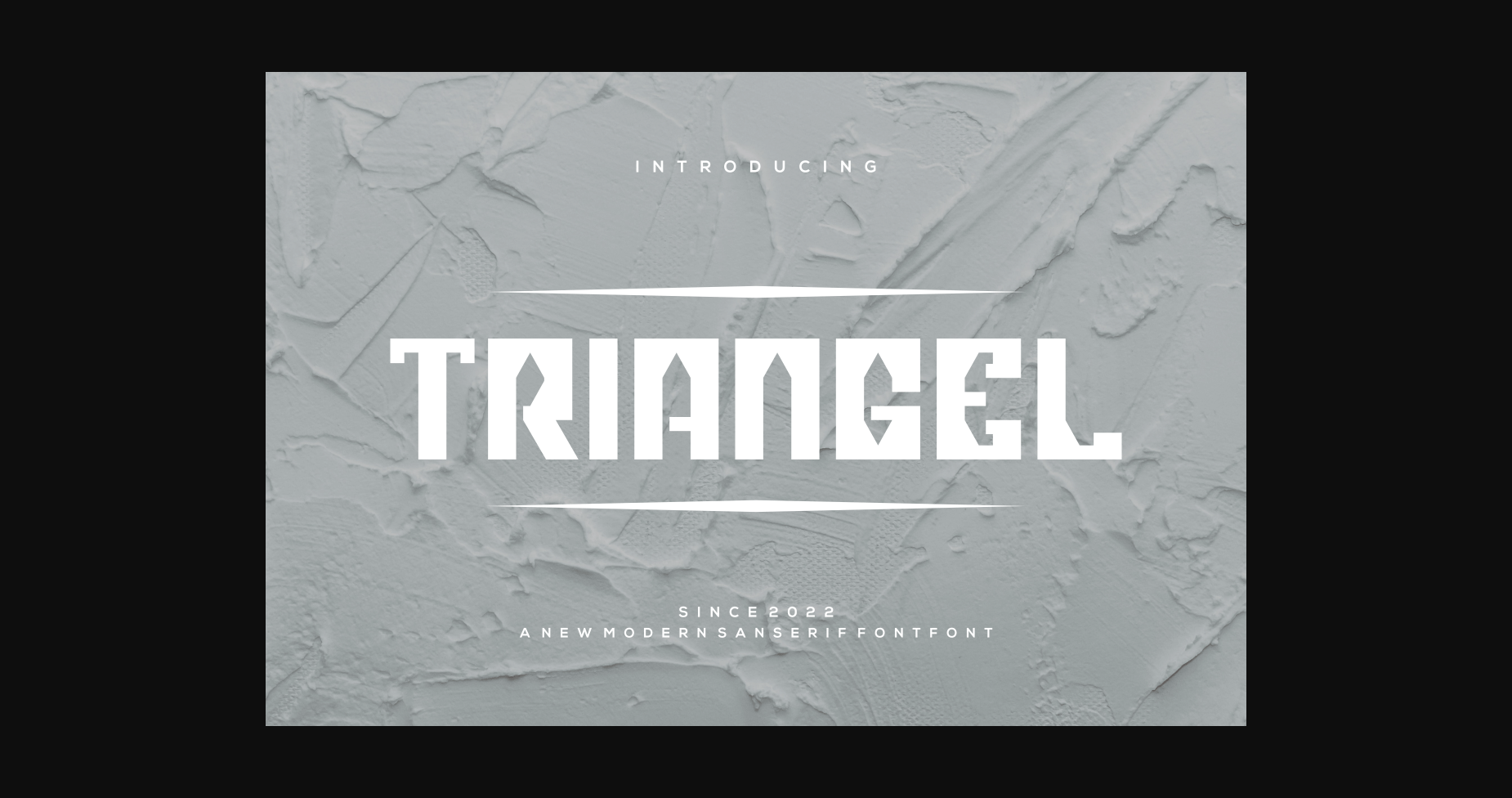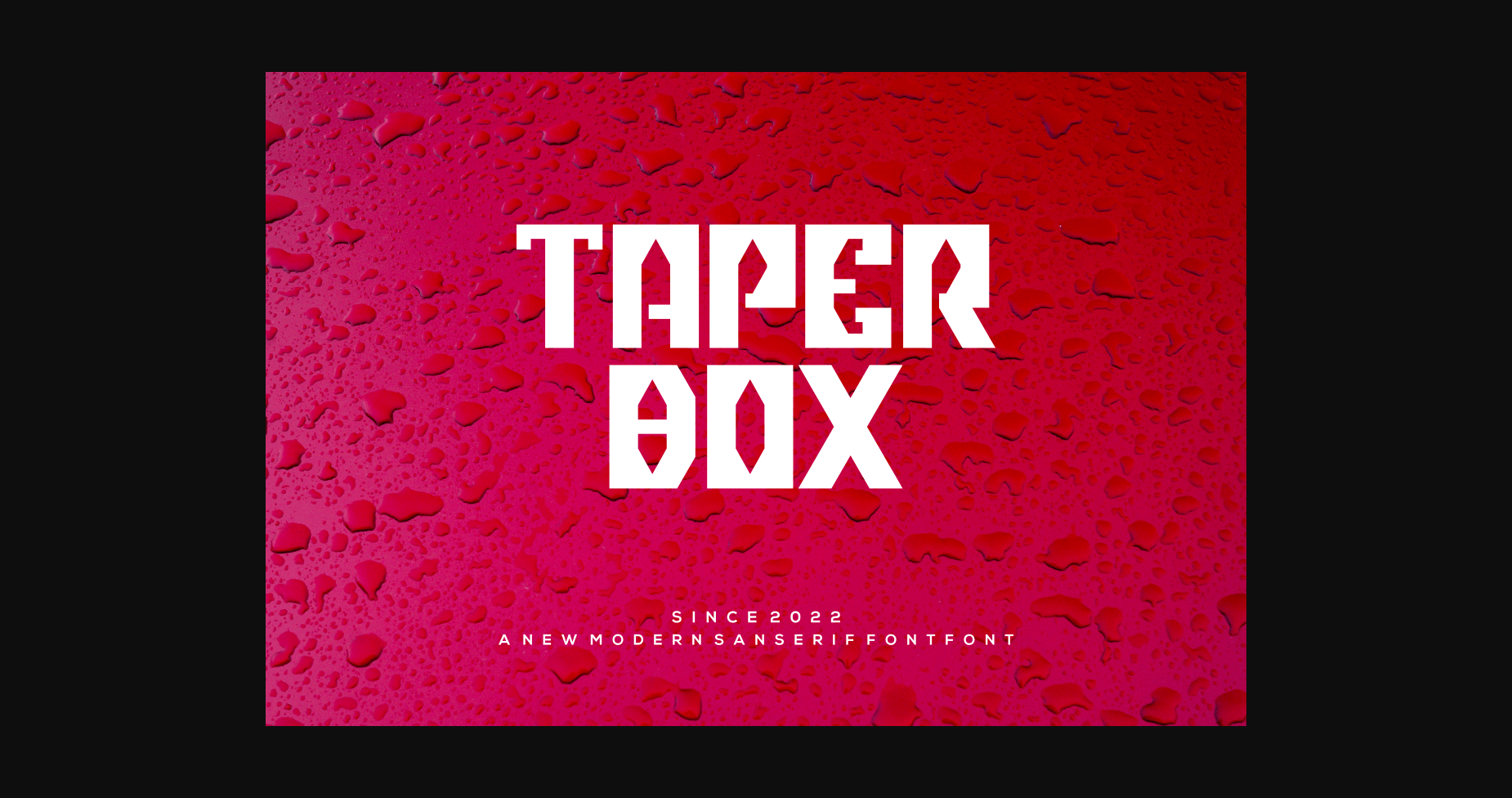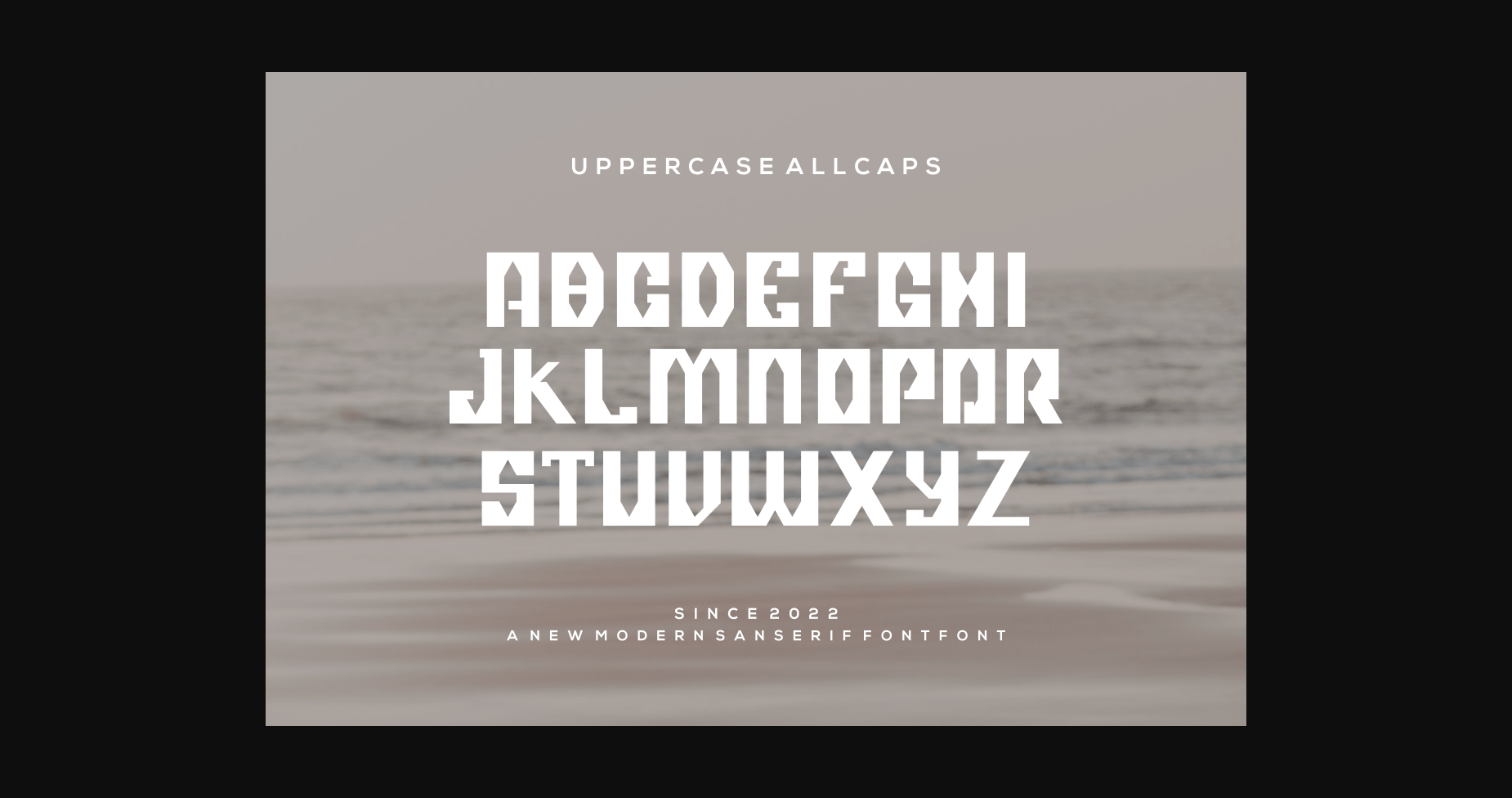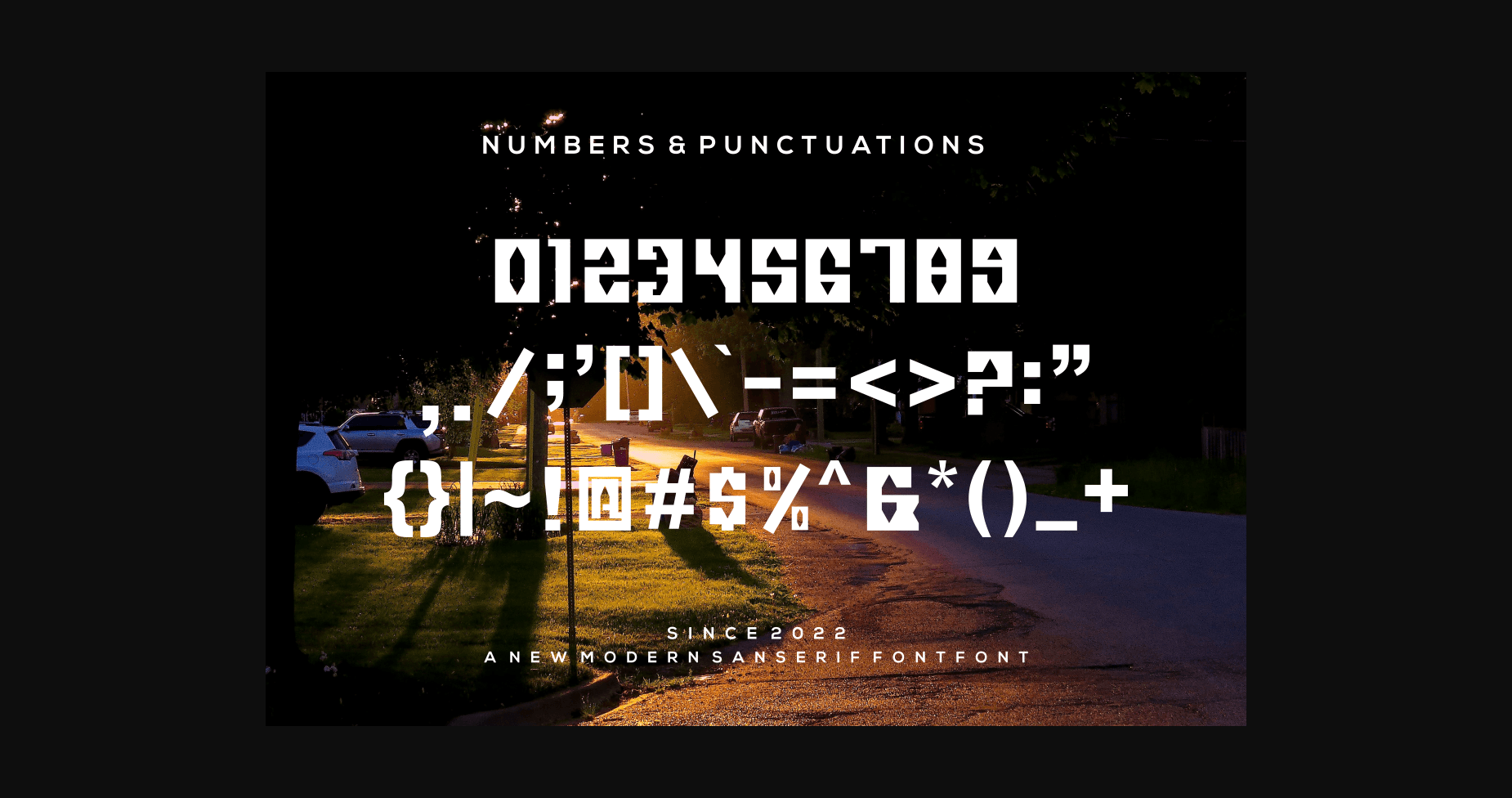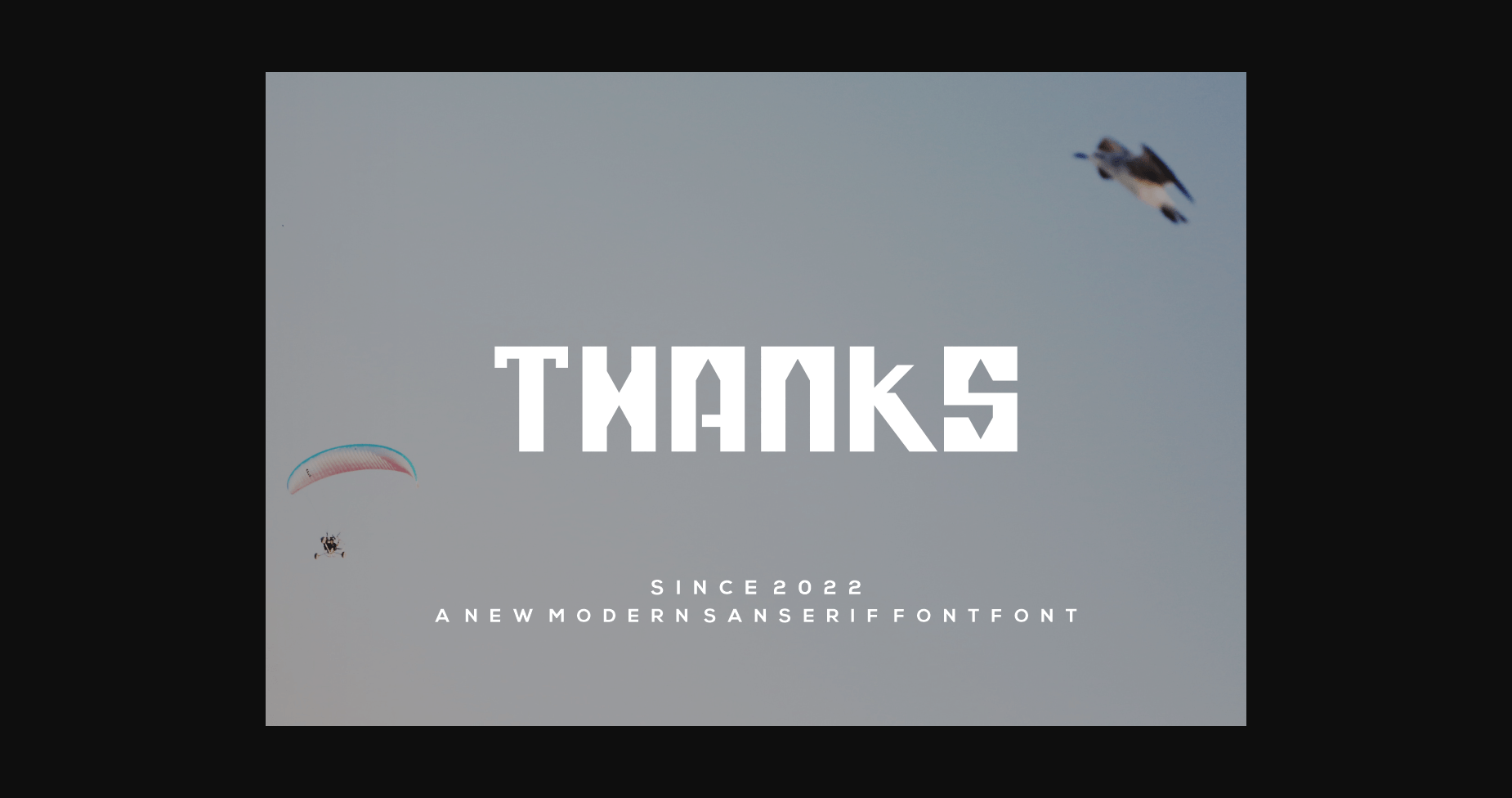
About Triangel Font
Triangel is a sweet and unique sans serif font. It maintains its classy calligraphy influences while feeling contemporary and fresh. Fall in love with it and bring your projects to the highest levels!